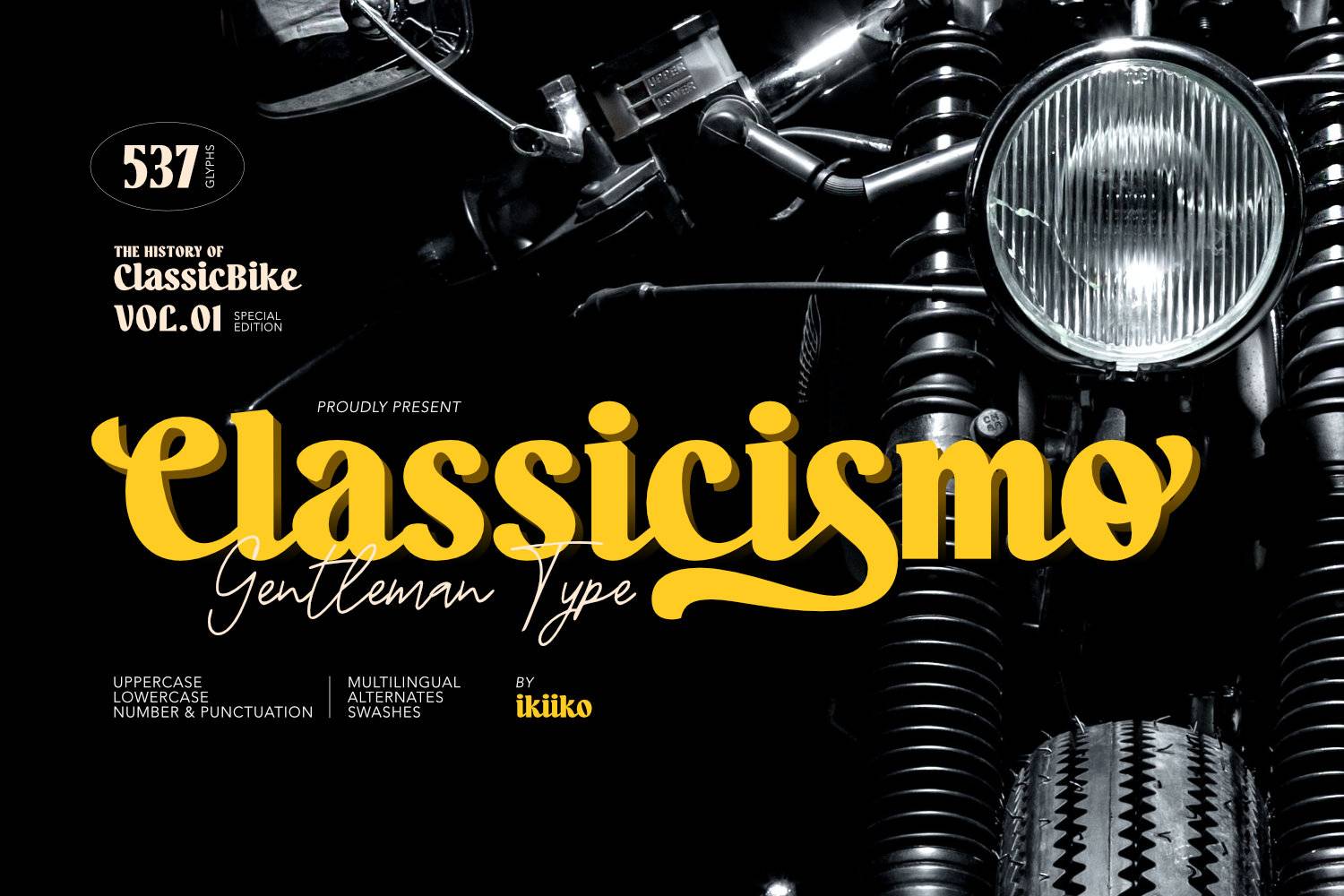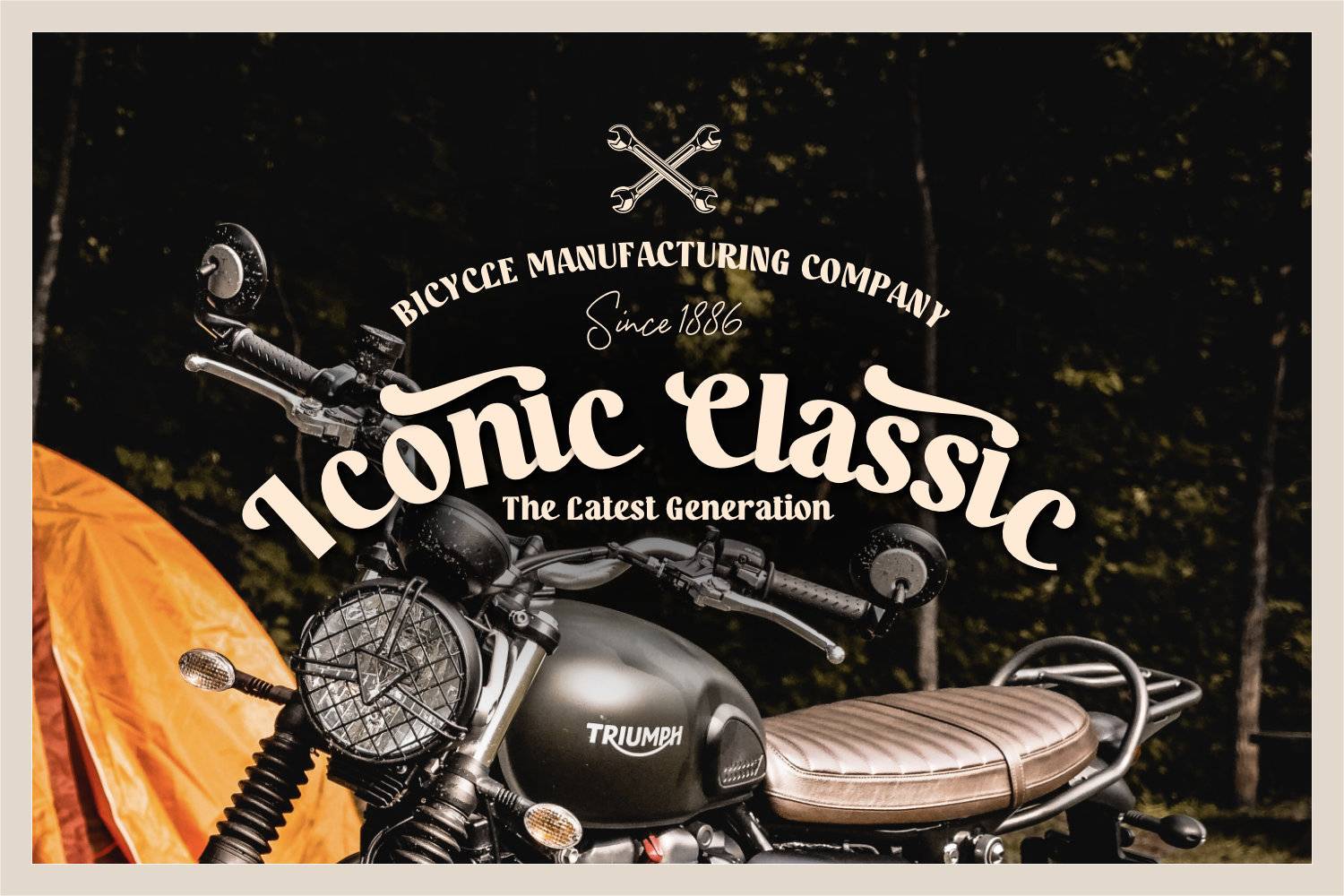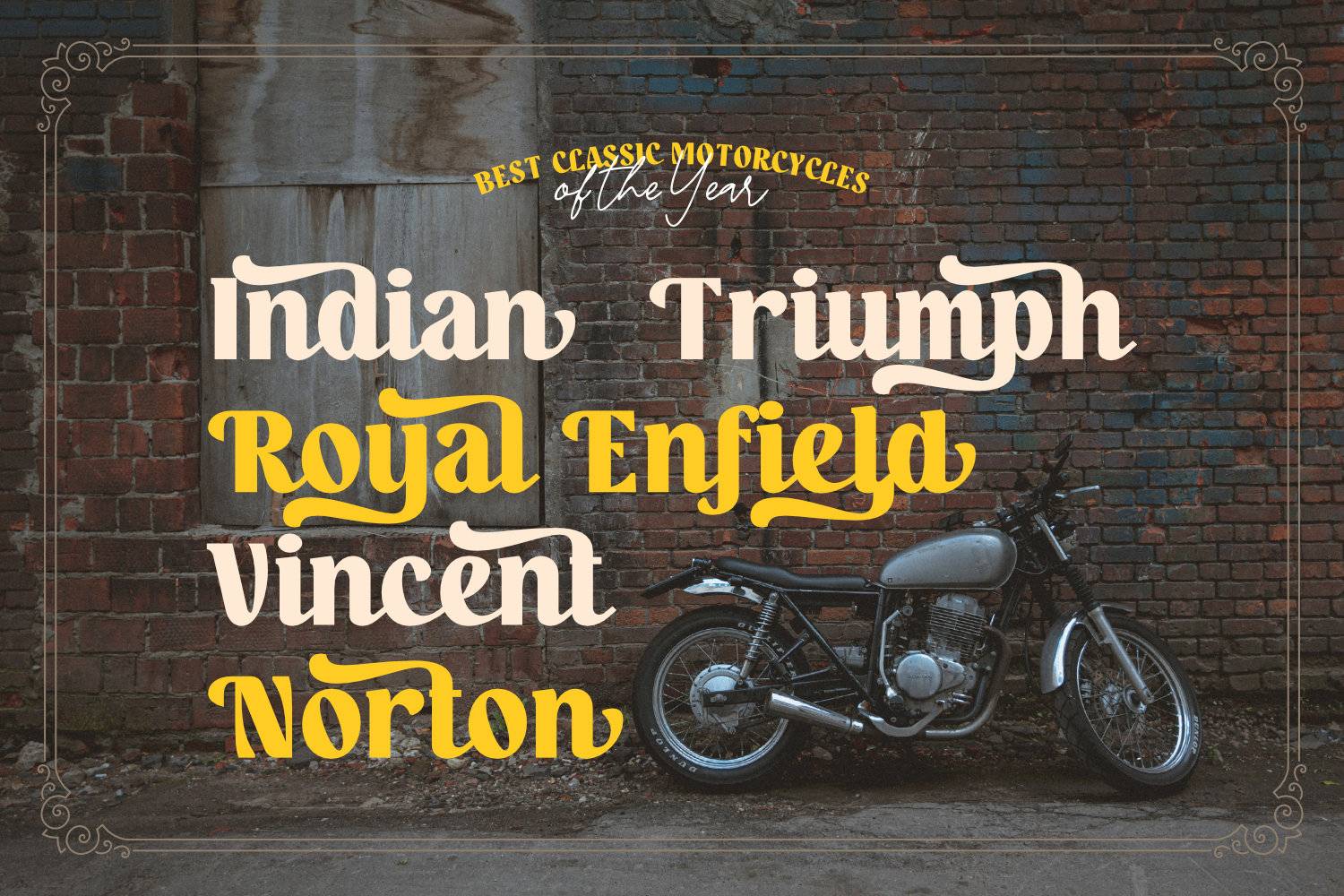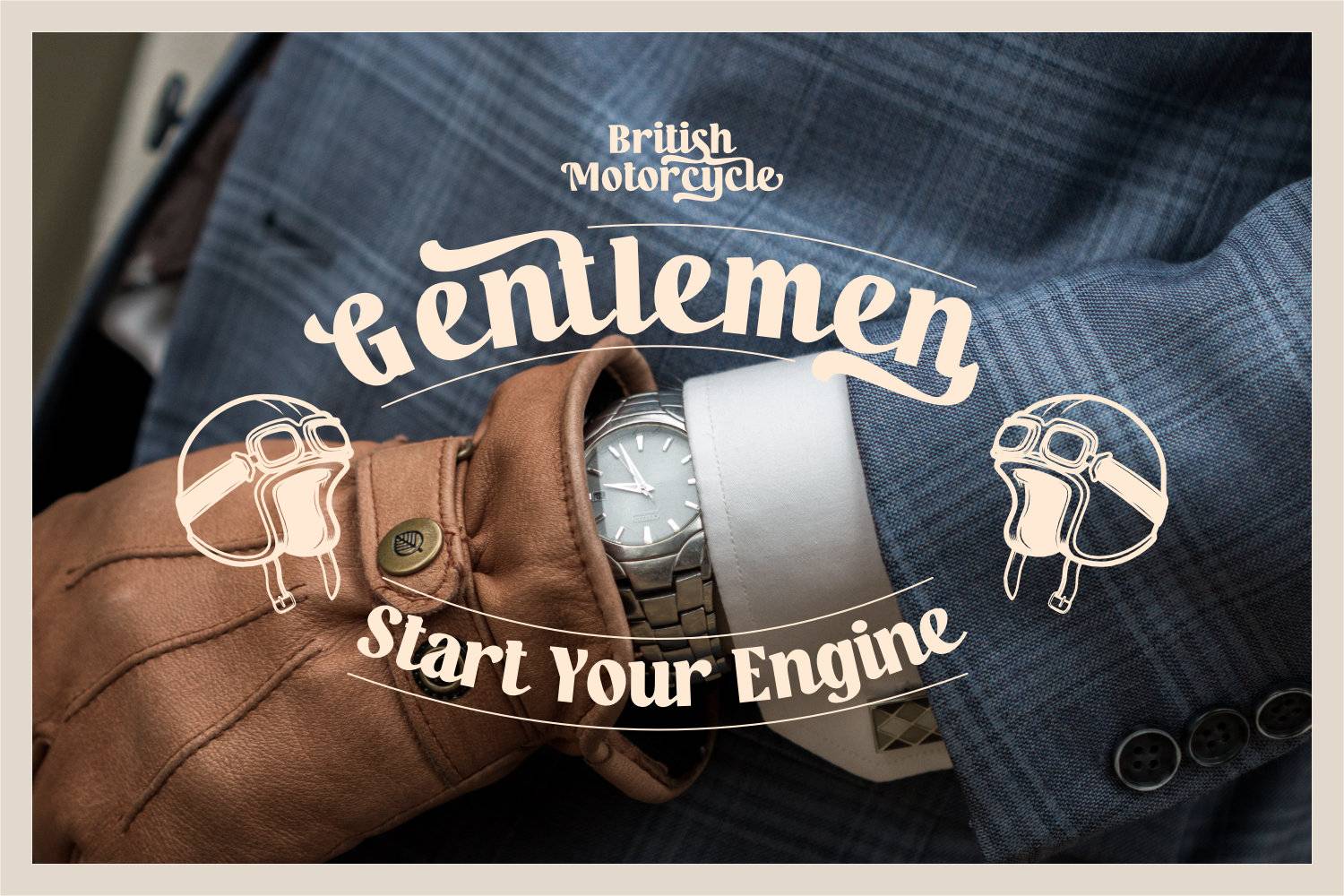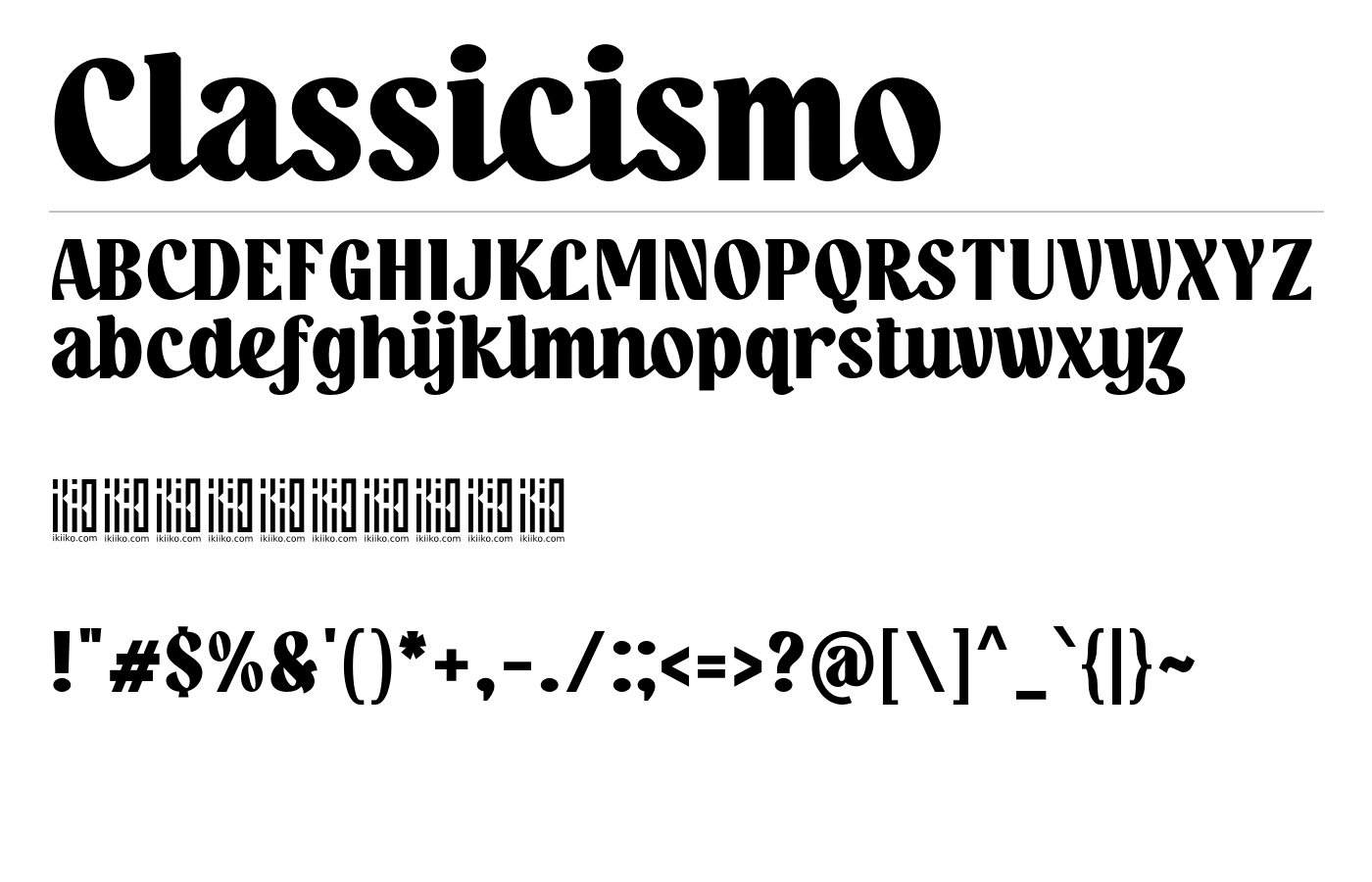
Classicismo is a bold serif font that combines a vintage feel with modern flair through its high contrast strokes and unique, slightly condensed letterforms. Its strong presence and distinctive curves make it ideal for display use in logos, headlines, and branding where a touch of classic elegance with a contemporary twist is desired. This font works well for fashion, editorial, and luxury projects that need to stand out with refined yet striking typography.
Classicismo Font
| Designer | Wahyu Eka Prasetya, Andhika Pradana |